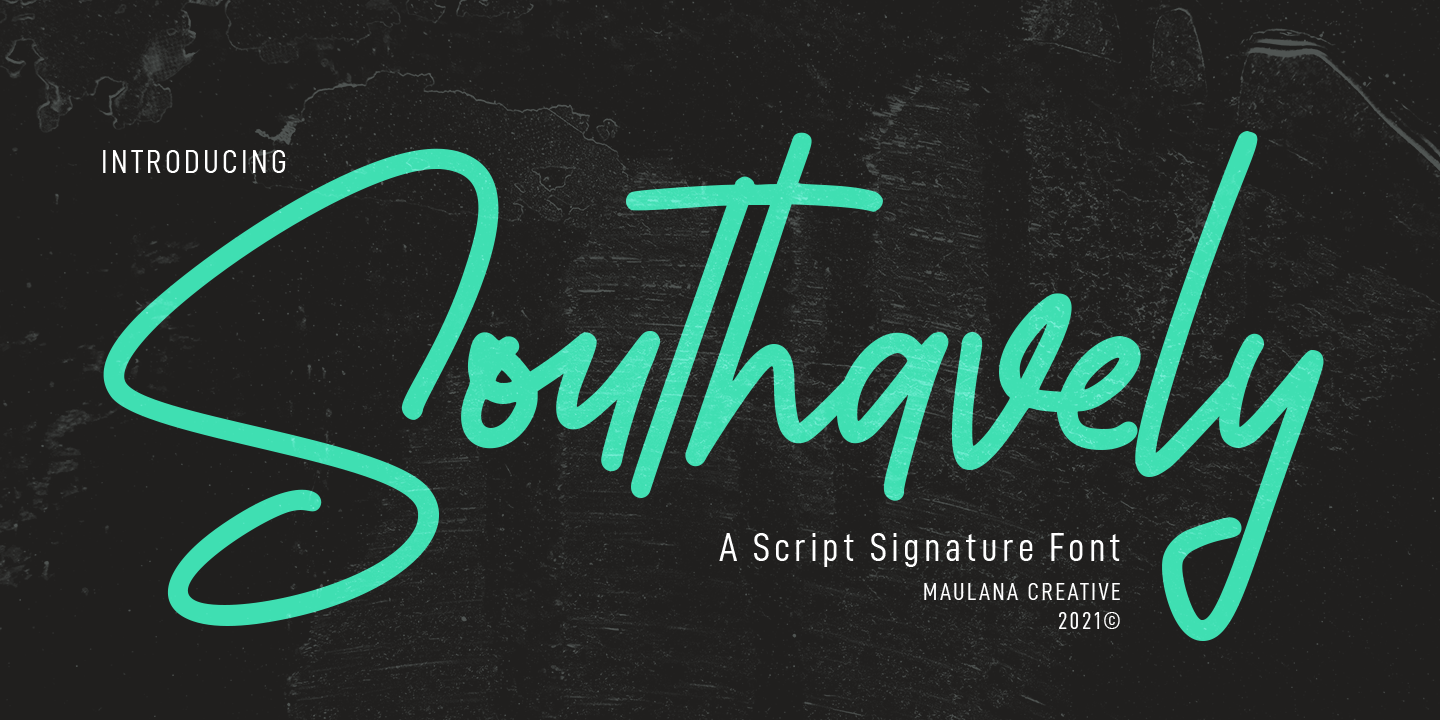
Southavely Signature Font is perfect for elegant design applications including luxury personal branding, sophisticated signature logos, exclusive boutique signage, premium wedding invitations, high-end fashion marketing, artisan product labels, personalized stationery design, and distinguished advertising campaigns that require typography with signature elegance and handcrafted sophistication.
What makes Southavely Signature Font exciting is its exquisite ability to capture the grace and personality of authentic handwritten signatures through elegantly flowing letterforms that embody personal distinction and refined taste. This sophisticated script typeface features natural characteristics with signature-style flourishes and elegant connections that instantly communicate exclusivity, personal touch, and artisanal quality. The font's signature personality and handcrafted appeal make it perfect for brands seeking to establish intimate connection and communicate values of personalization, craftsmanship, and exclusive service to discerning clientele.
Southavely Signature Font family includes various stylistic options and signature elements that enhance its handcrafted authenticity. The family typically features regular and bold weights, complemented by signature swashes, elegant ligatures, and special character variations that provide designers with creative flexibility to achieve naturally flowing and personally distinctive typography solutions.
Luxury designers consistently select Southavely Signature Font Free Download for projects requiring typography that embodies personal elegance and signature sophistication. This distinguished typeface brings authenticity and personal touch to premium communications by adding genuine handcrafted character and emotional resonance to any luxury design project. The font's elegantly crafted letterforms ensure excellent readability while maintaining the signature quality that exclusive brands demand. Premium creative agencies worldwide use this sophisticated typeface to communicate brand values of personalization, exclusivity, and artisanal excellence. Create your signature style with Southavely Signature Font and develop memorable visual communications that resonate with audiences who appreciate personal elegance, handcrafted quality, and the distinctive beauty of authentic signature design that speaks to individual taste and refined sophistication.